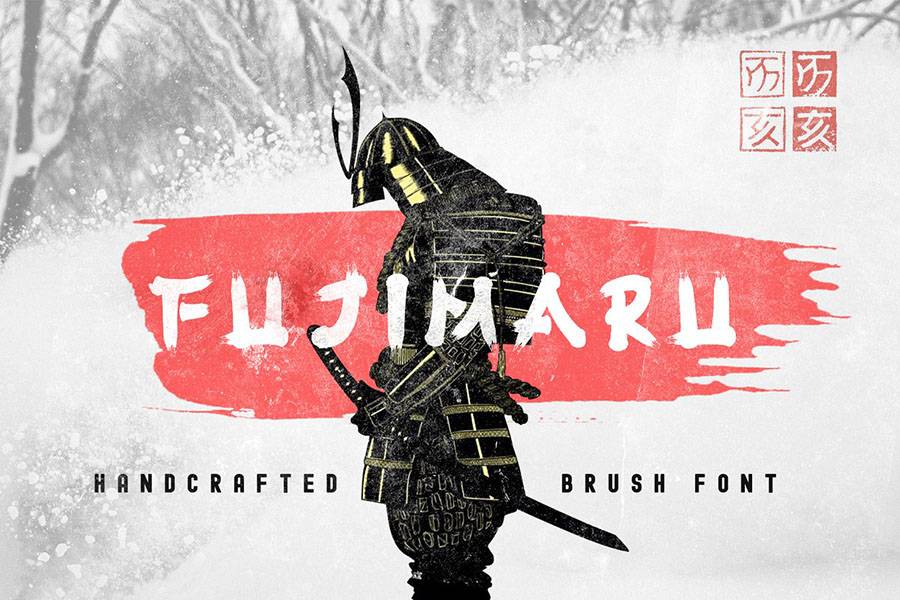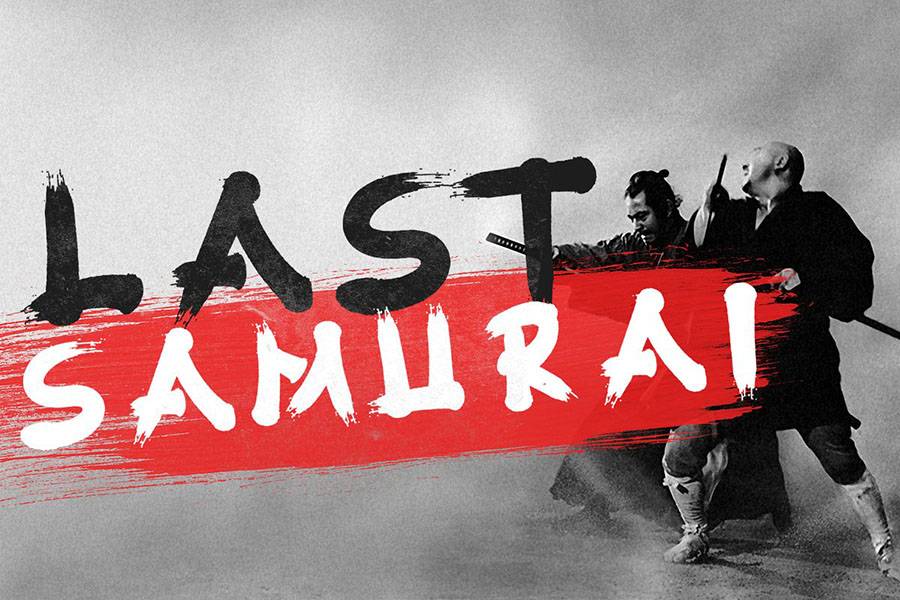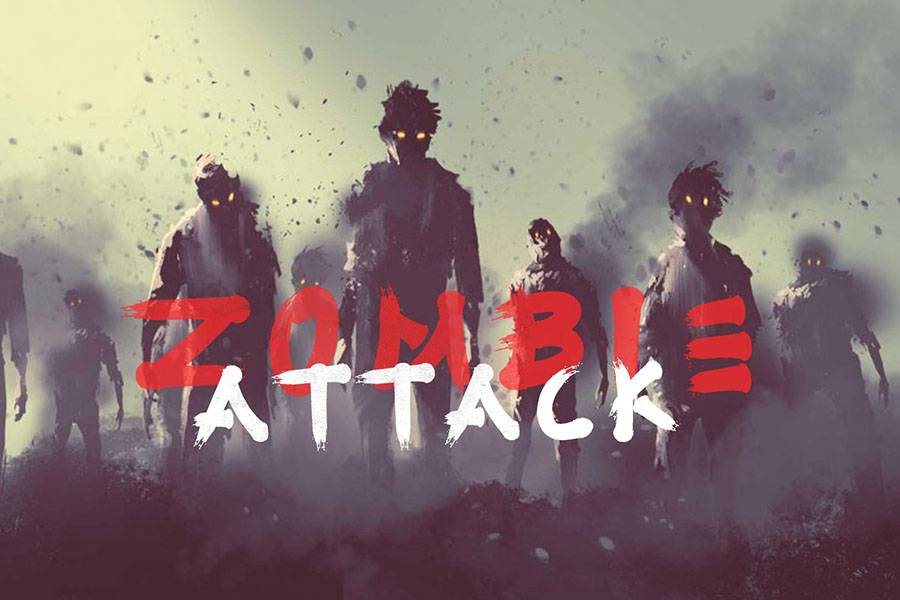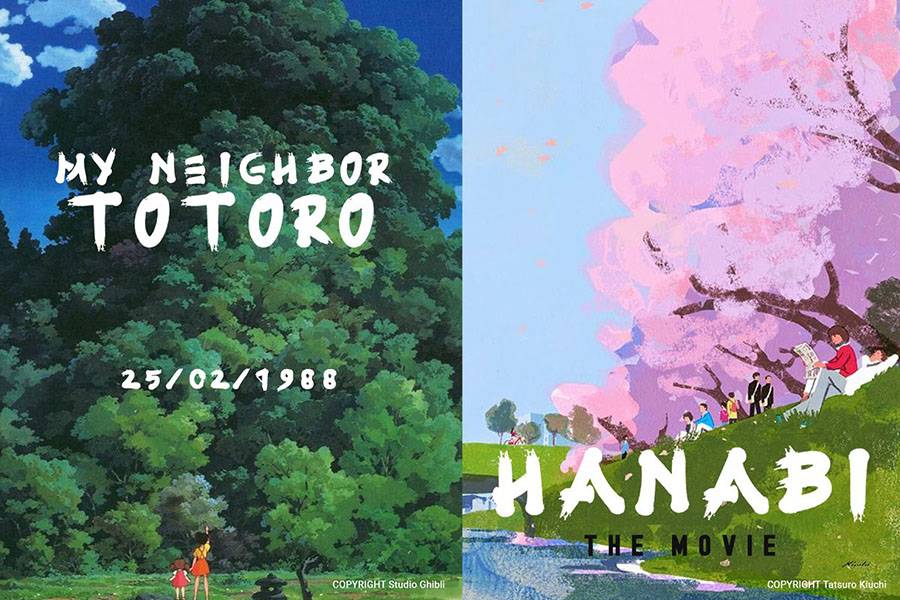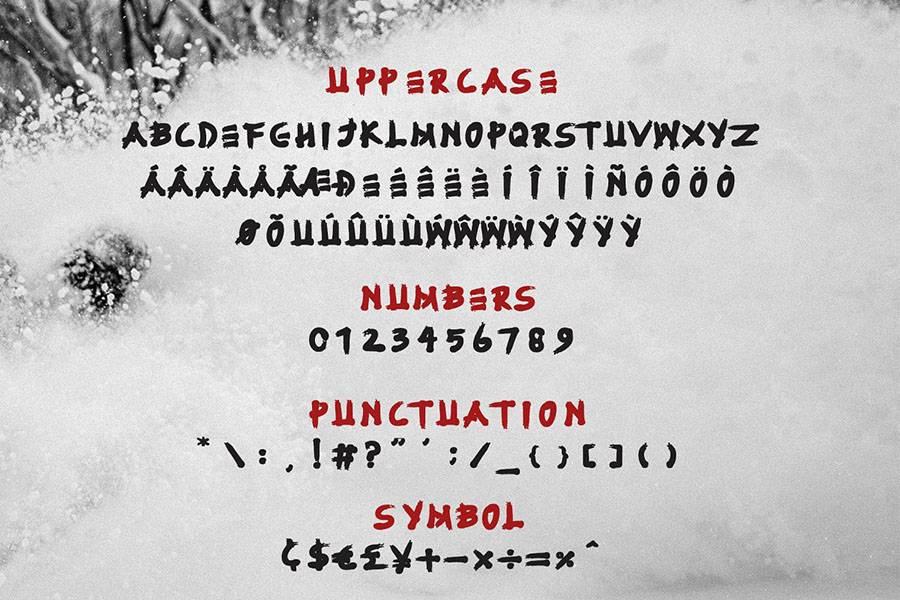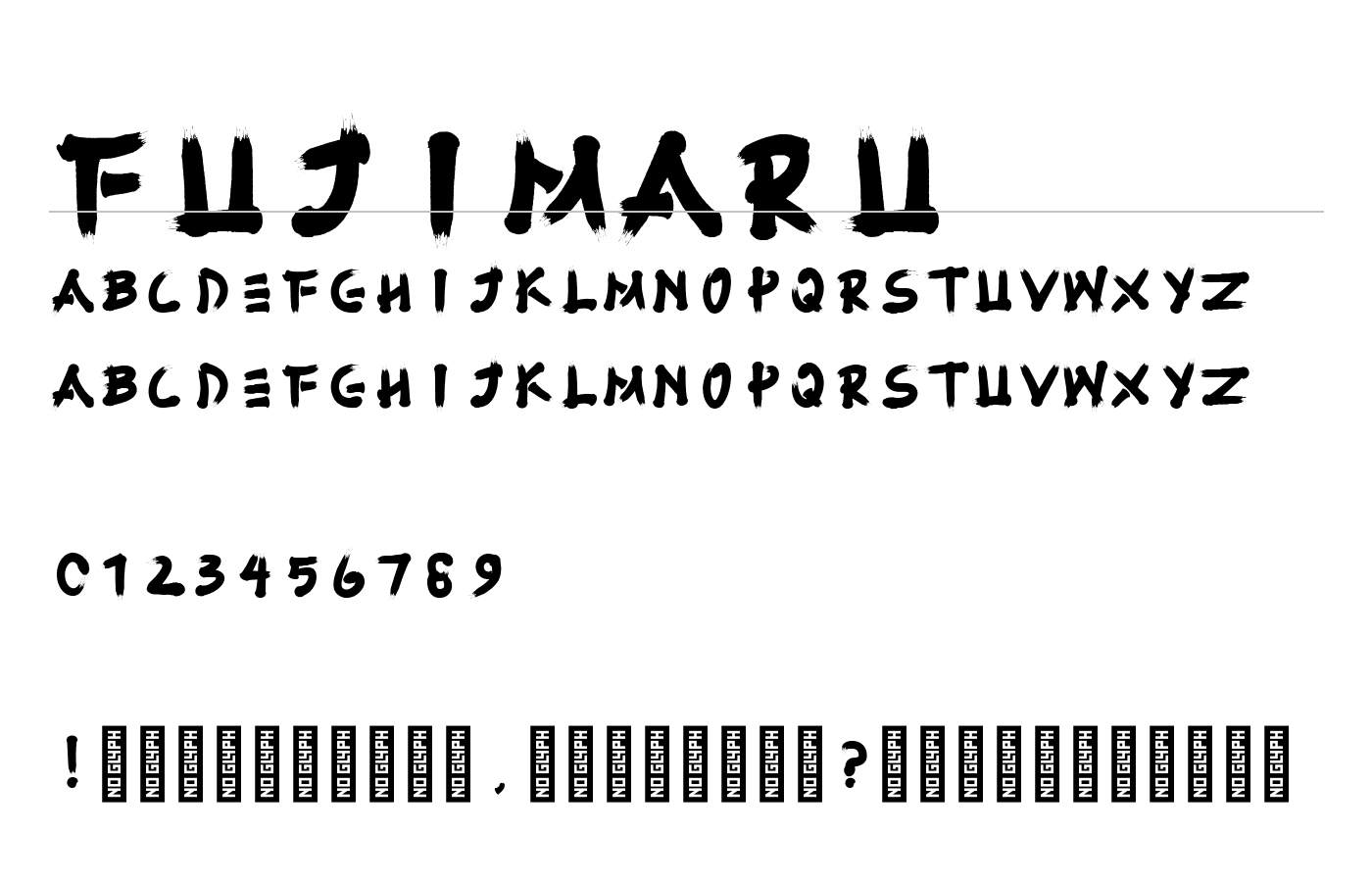
Fujimaru Brush Display is a bold, expressive brush-style font with a strong hand-painted feel. Its rough, textured strokes and irregular edges create a dynamic, artistic vibe perfect for designs that want to convey creativity and energy. This font works best for headlines, logos, and branding that seek a lively, handcrafted look with a distinctive personality.
Fujimaru Brush Display Font
About Fujimaru Brush Display Font
| Font family | Fujimaru Brush Display Font |
| Designer | Imam Nurrahmat |